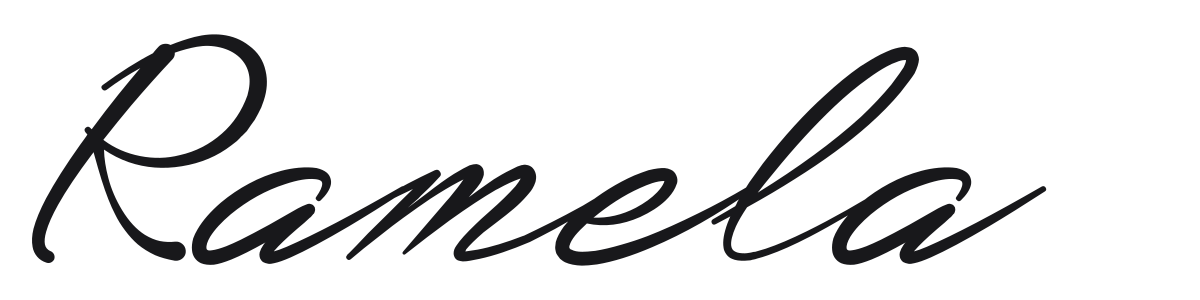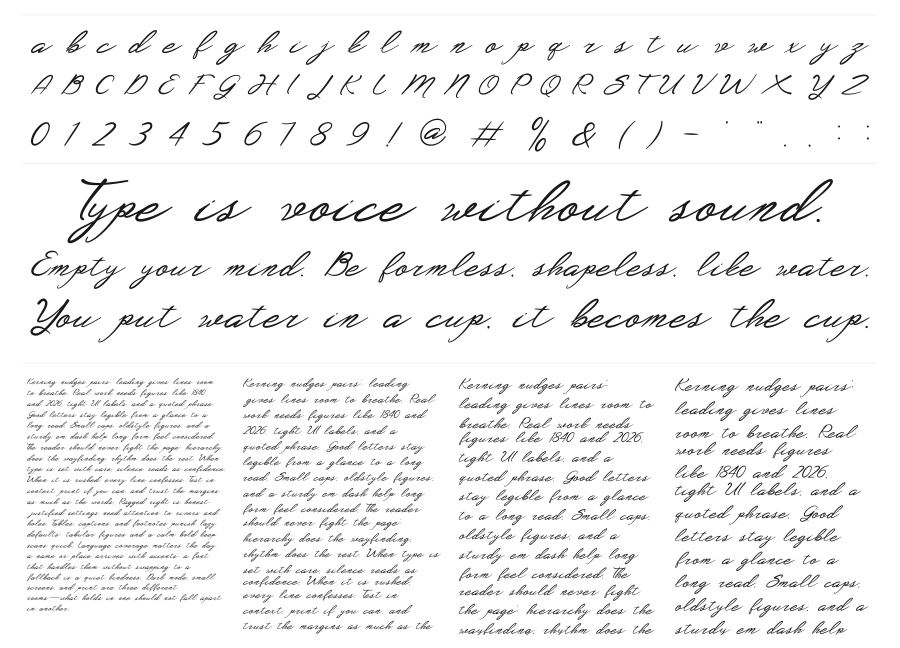
Ramela
Ramela is a flowing casual script that captures the loose, natural energy of handwritten ink lettering. Thin strokes, sweeping ascenders, and a gently irregular baseline give it an authentic, personal quality without looking labored. It suits branding, packaging, and editorial contexts where warmth and a human touch matter.